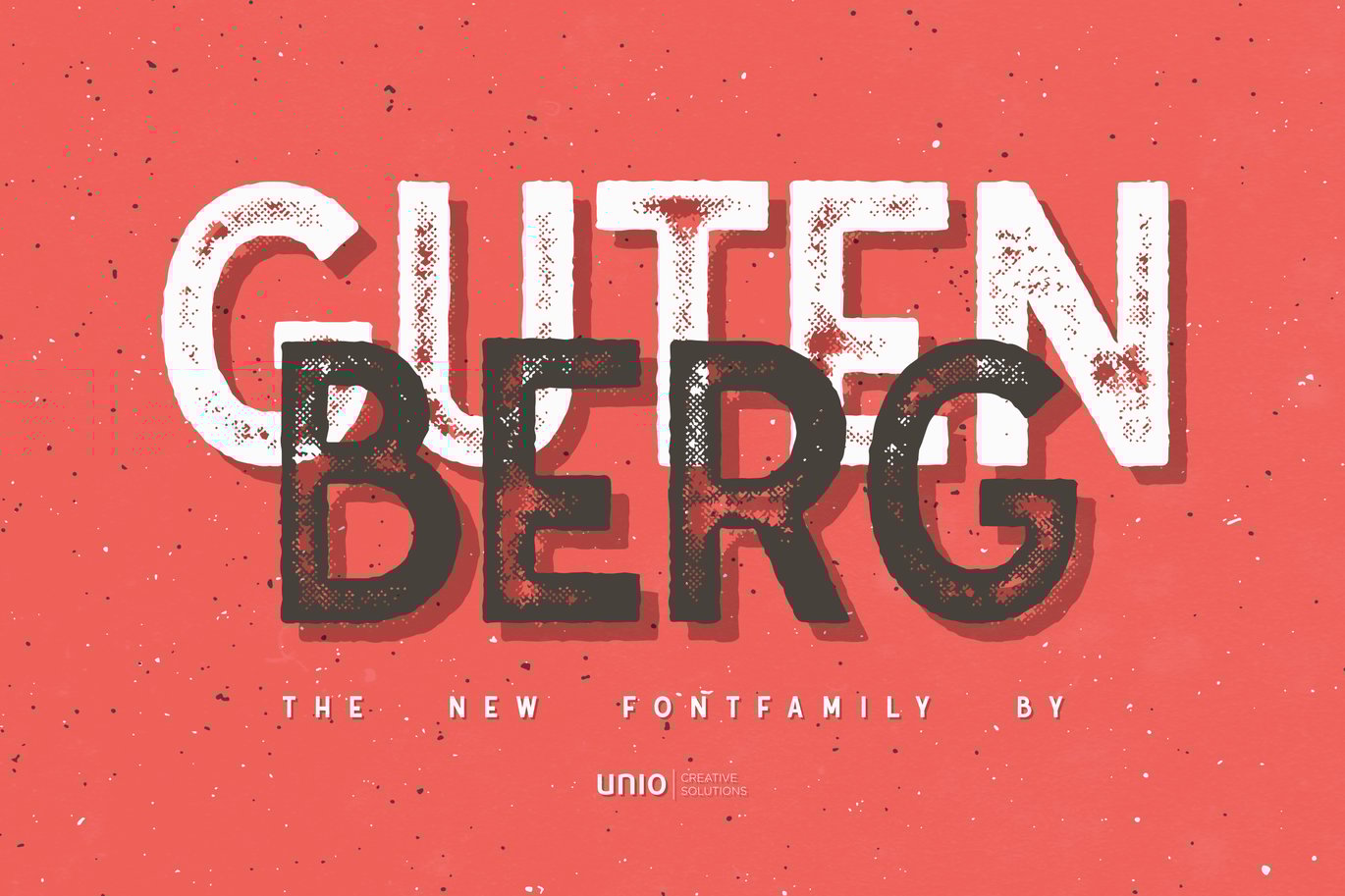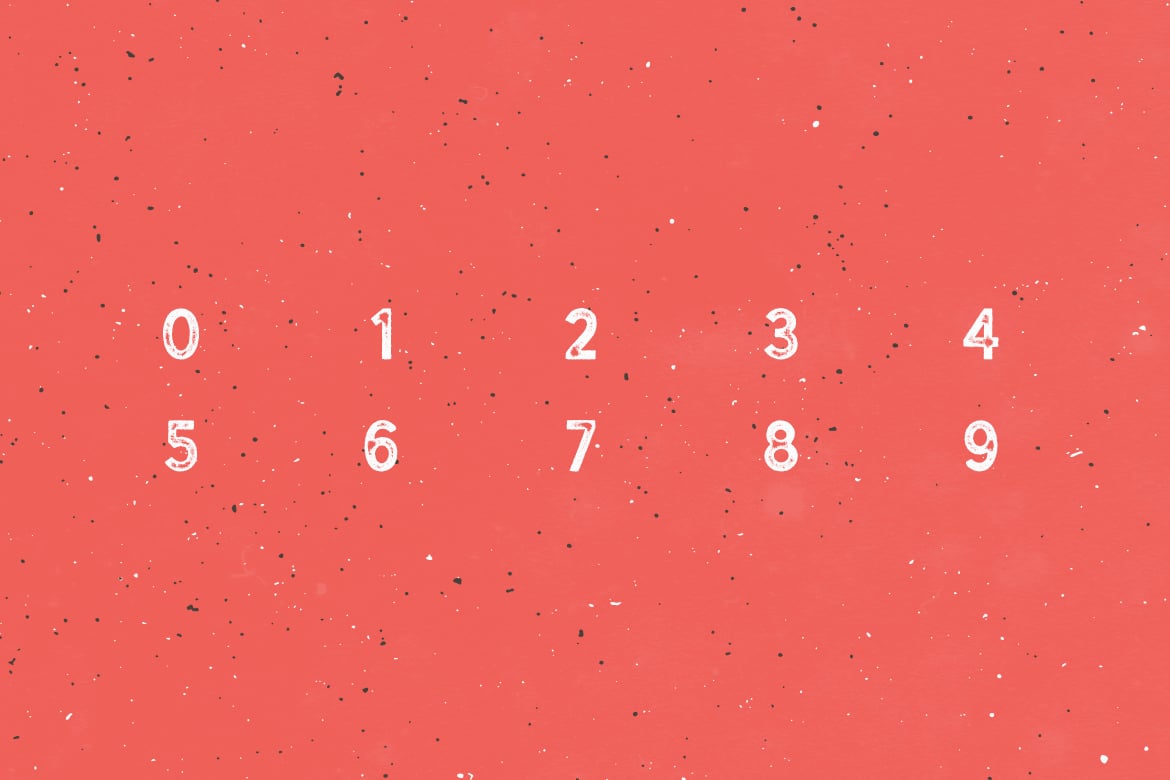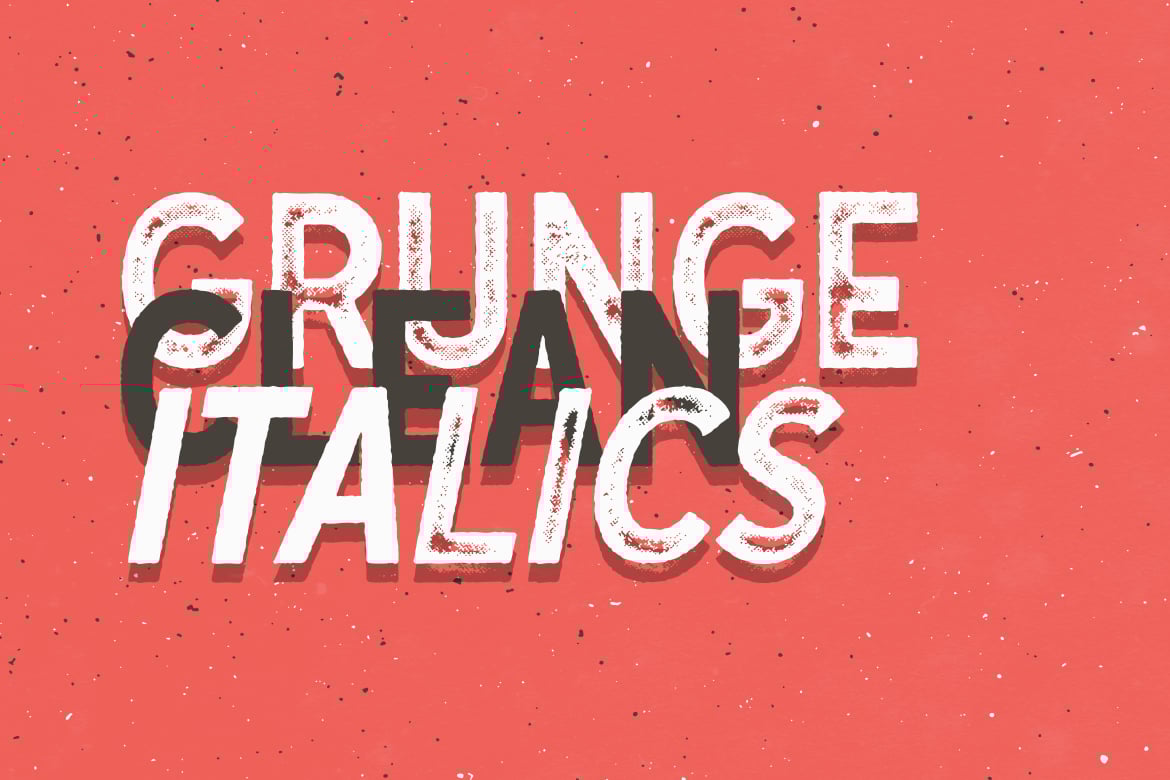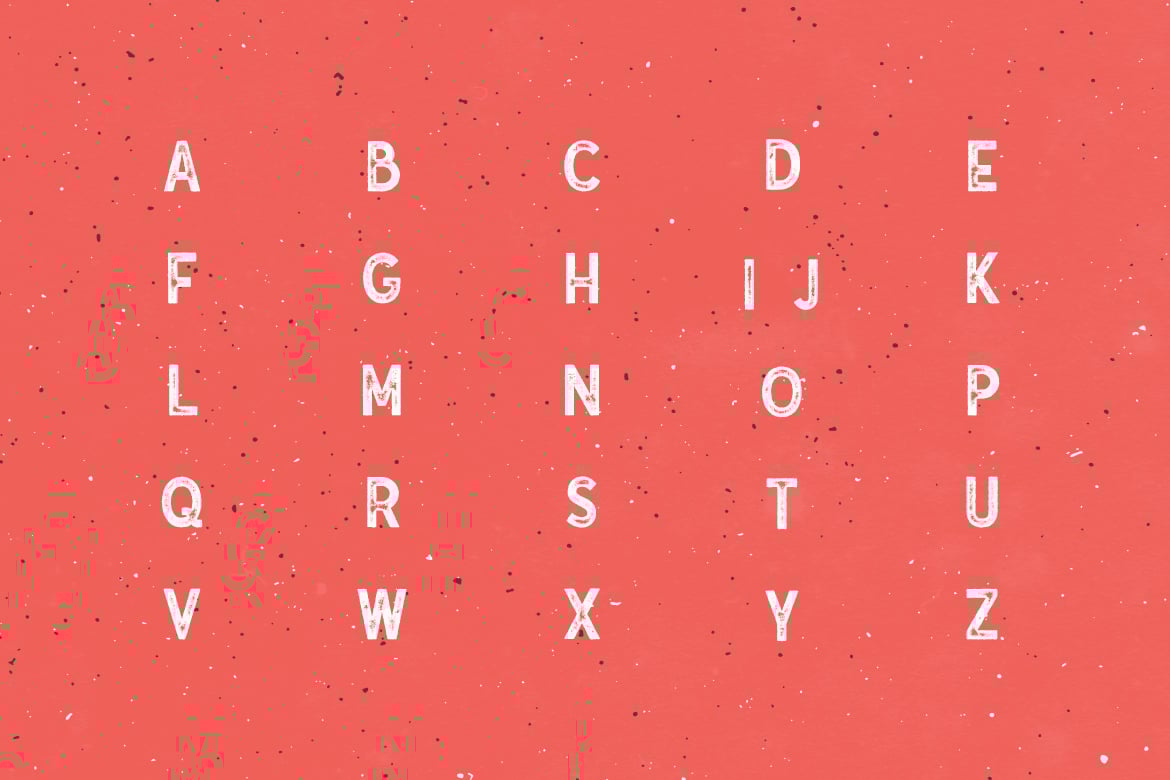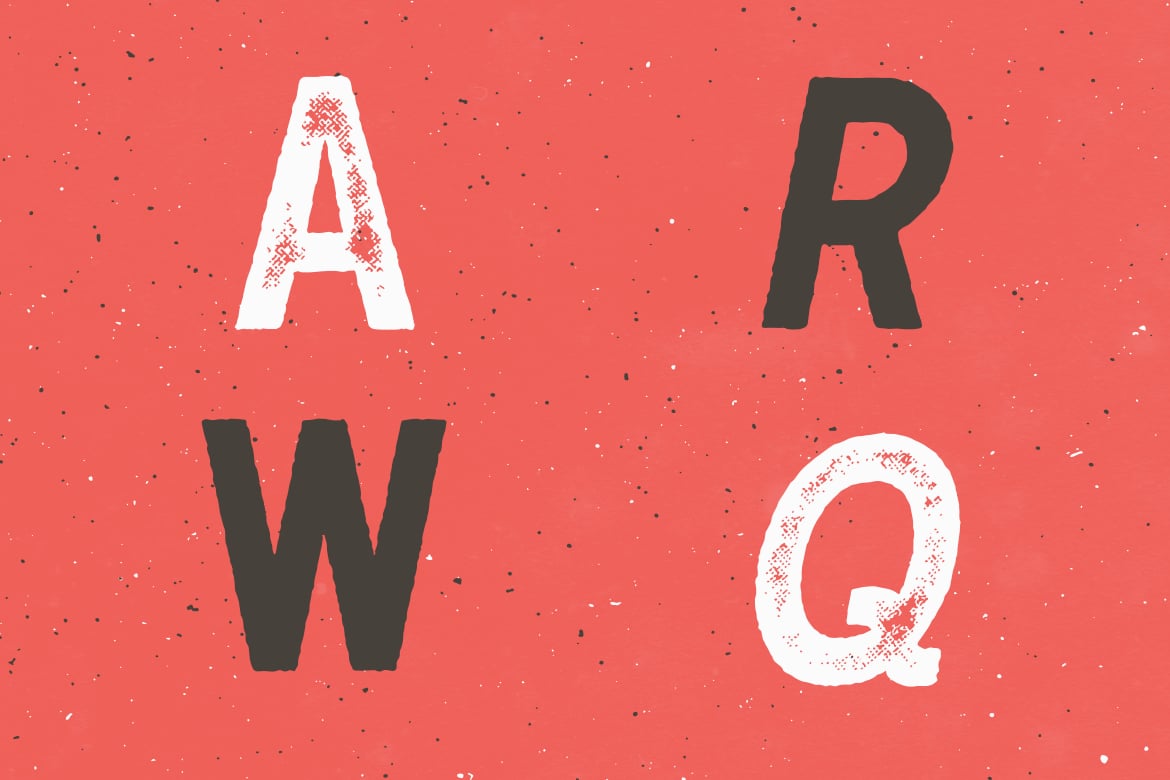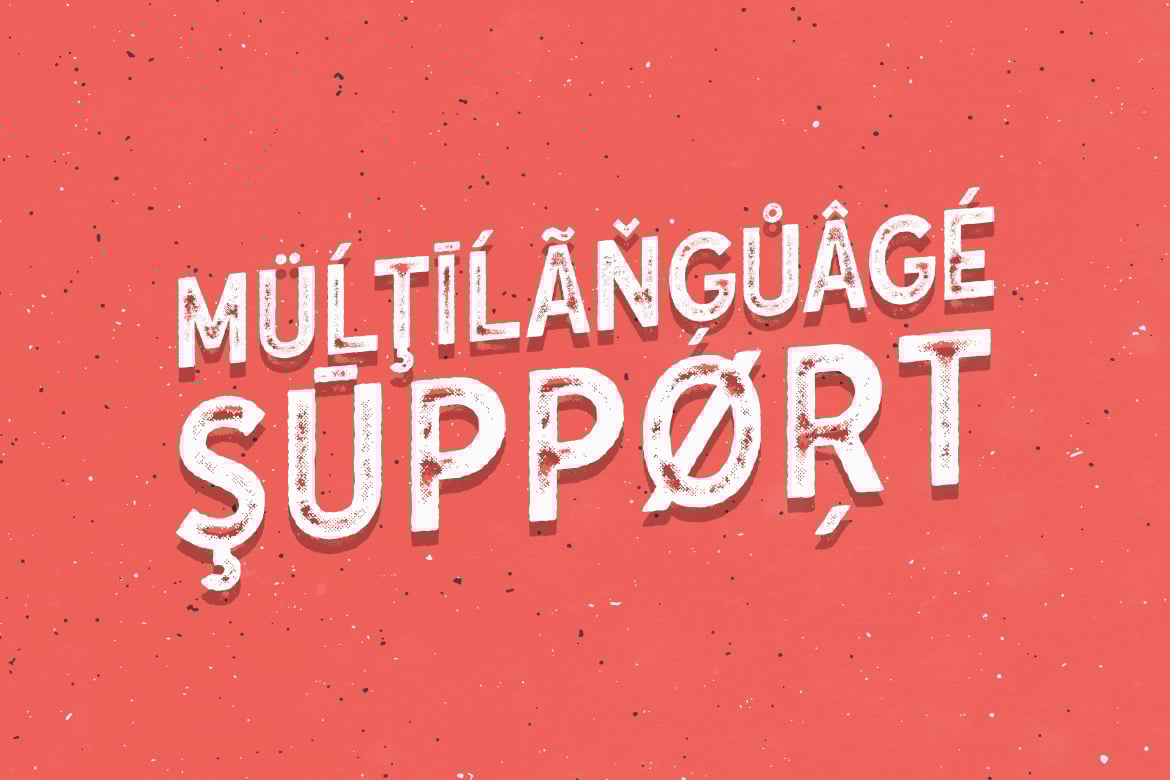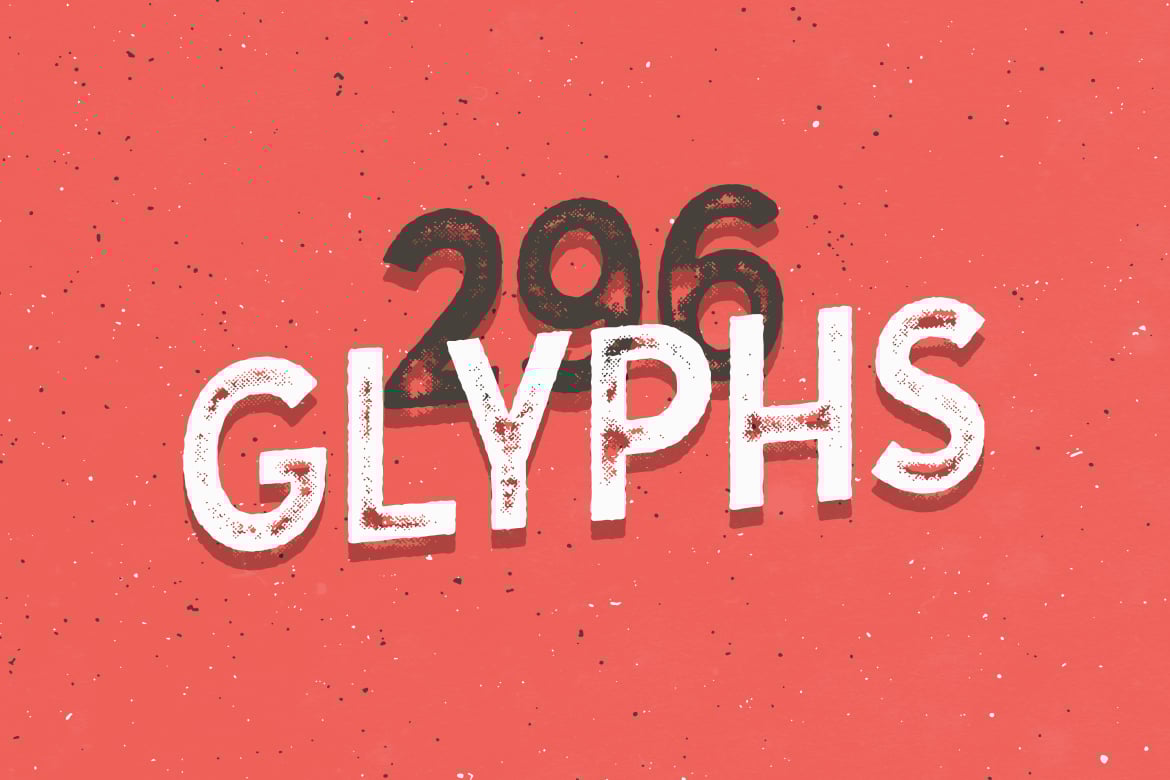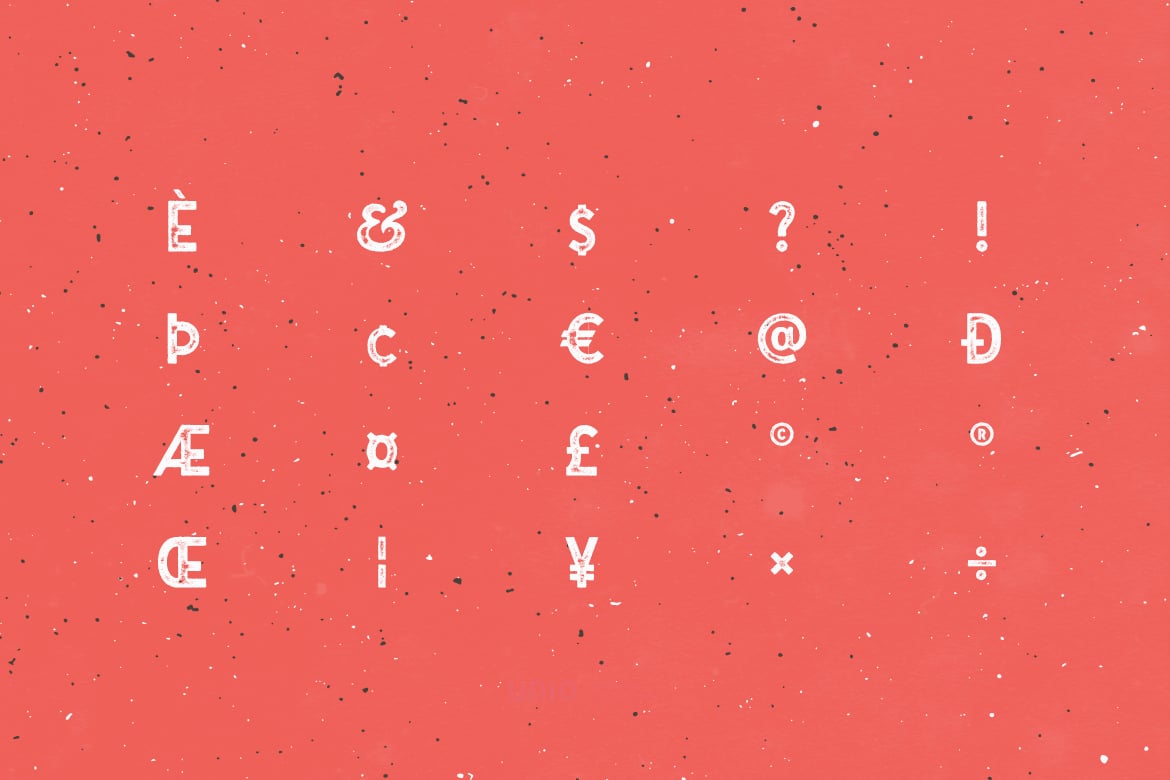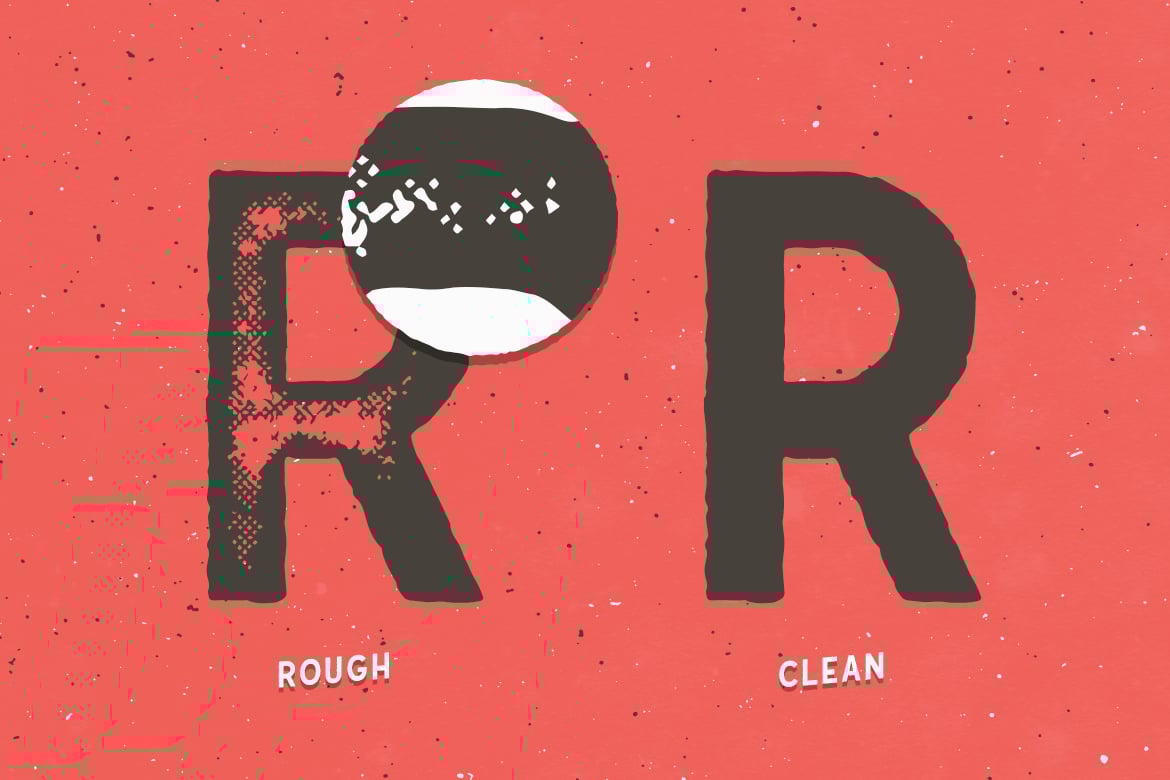
Gutenberg – Font Family
Unio presents “Gutenberg – Font Family”.
A sincere tribute to Johannes Gutenberg who introduced printing to Europe with his mechanical movable type printing technique. Certainly one of the most important invention of the second millennium.
Gutenberg is a sans serif font which presents sketchy edges with irregular scheme imperfections to simulate the transferred ink.
This font family includes 296 glyphs and the multilanguage support, it also comprises regular rough and regular clean styles with corresponding true italics.
Designed with a modern style to match any graphic requirements.